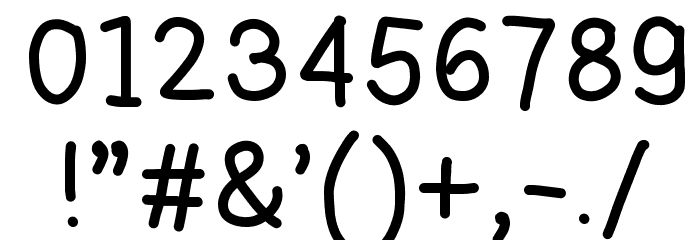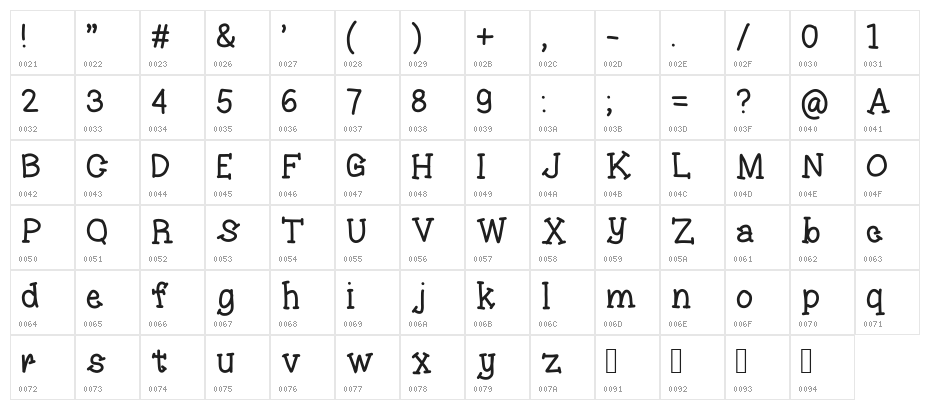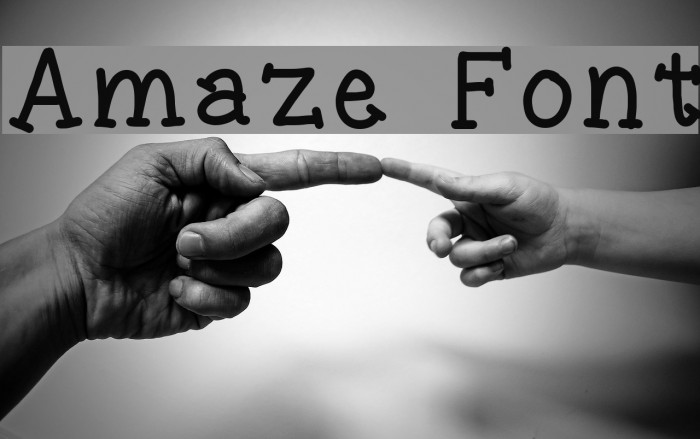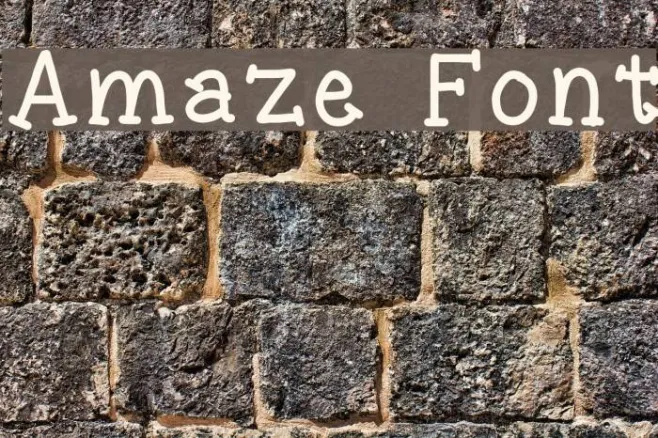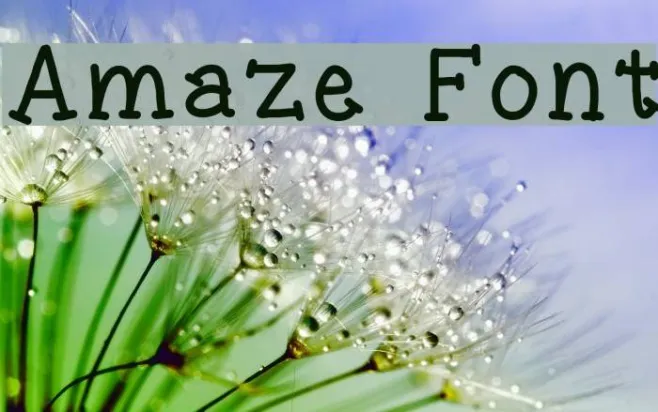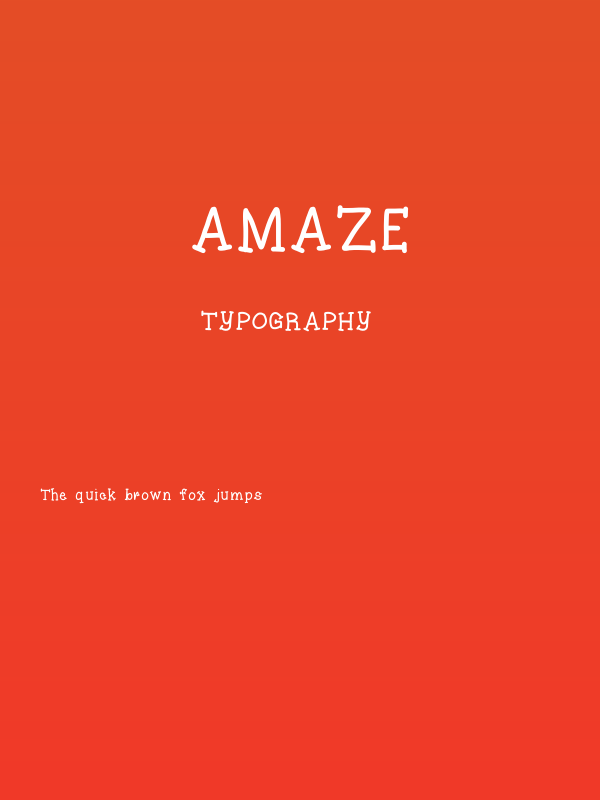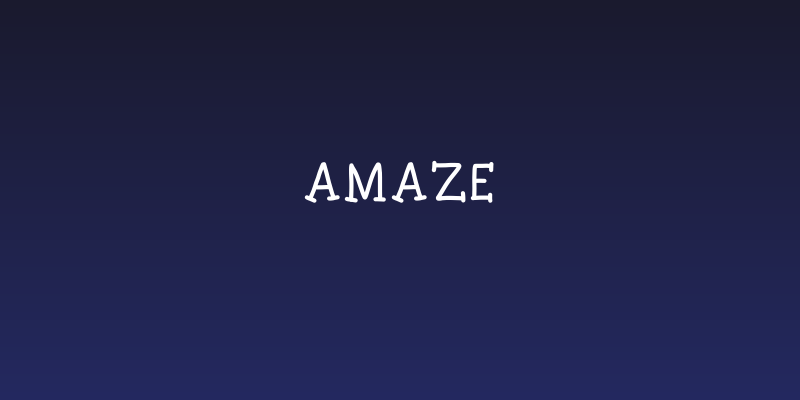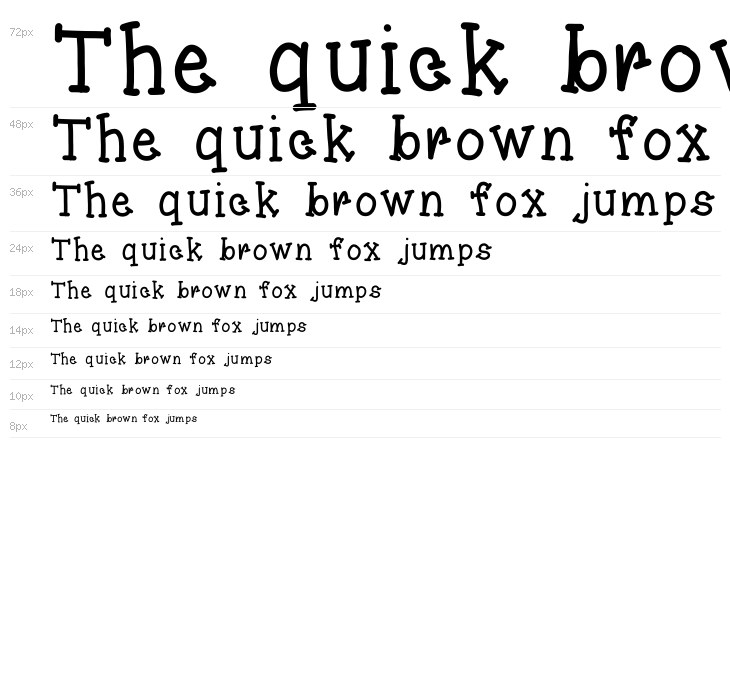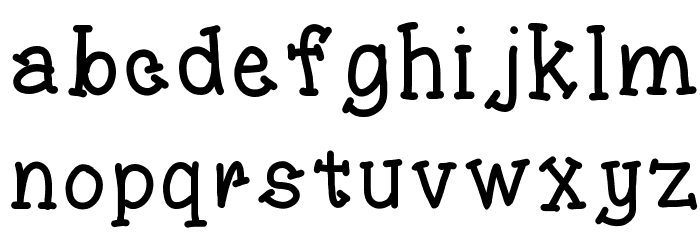
Amaze Font
Amaze Description
This font features a playful and whimsical design with a hand-drawn aesthetic. The characters are slightly irregular, giving it a casual and friendly appearance. The uppercase letters are bold and prominent, while the lowercase letters maintain a consistent style with rounded edges and varying stroke widths. The numerals are clear and easy to read, matching the overall playful tone of the font. Special characters are creatively designed, adding to the font's unique charm. This font is perfect for projects that require a fun and informal touch.
| Proposed Projects | Ideal for children's books, greeting cards, playful branding, and creative posters. |